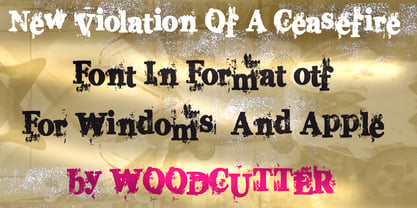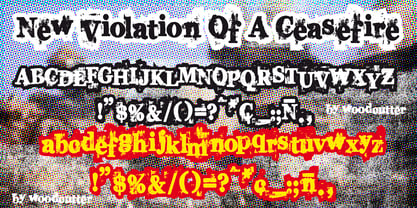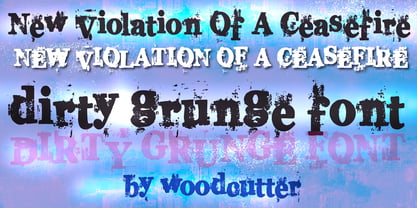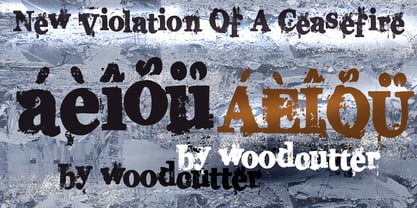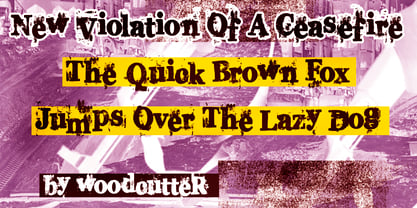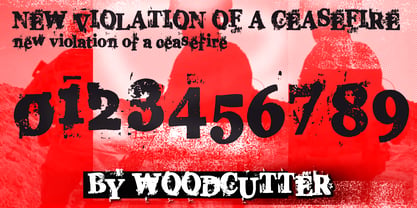
New Violation Of A Ceasefire
by Woodcutter
The New Violation Of A Ceasefire Font Family was designed by Jordi Manero and published by Woodcutter. New Violation Of A Ceasefire contains 1 styles. More about this family
"New Violation Of A Ceasefire" is a typeface that fuses the raw analogue grit of a typewriter with the distorted, corrupted appearance of a malfunctioning fax and the unapologetic attitude of aggressive punk design. Featuring uppercase, lowercase, and full accent support, its characters look dirty, broken, and disturbingly unstable, as if every letter had been smashed, dragged, or poorly printed on a document damaged by chaos and conflict. At its core, it echoes the structure of traditional typewriter fonts, but here it is completely corrupted: misaligned strokes, crushed shapes, tilted glyphs, missing fragments, ink smudges, and digital noise all contribute to an aesthetic of tension and deterioration. It evokes secrecy, urgency, underground communication and disruptive energy. "New Violation Of A Ceasefire" feels like a desperate message sent from the edge of collapse, an urgent report printed through interference, or a clandestine note copied on a filthy machine in the middle of the night. All of this wrapped in a bold punk spirit that rejects perfection and embraces raw rebellion. Perfect for concert posters, album covers, independent magazines, protest graphics, underground branding or any project that requires a harsh, chaotic, and provocative visual identity. This typeface doesn’t just communicate—it screams.
New Violation Of A Ceasefire